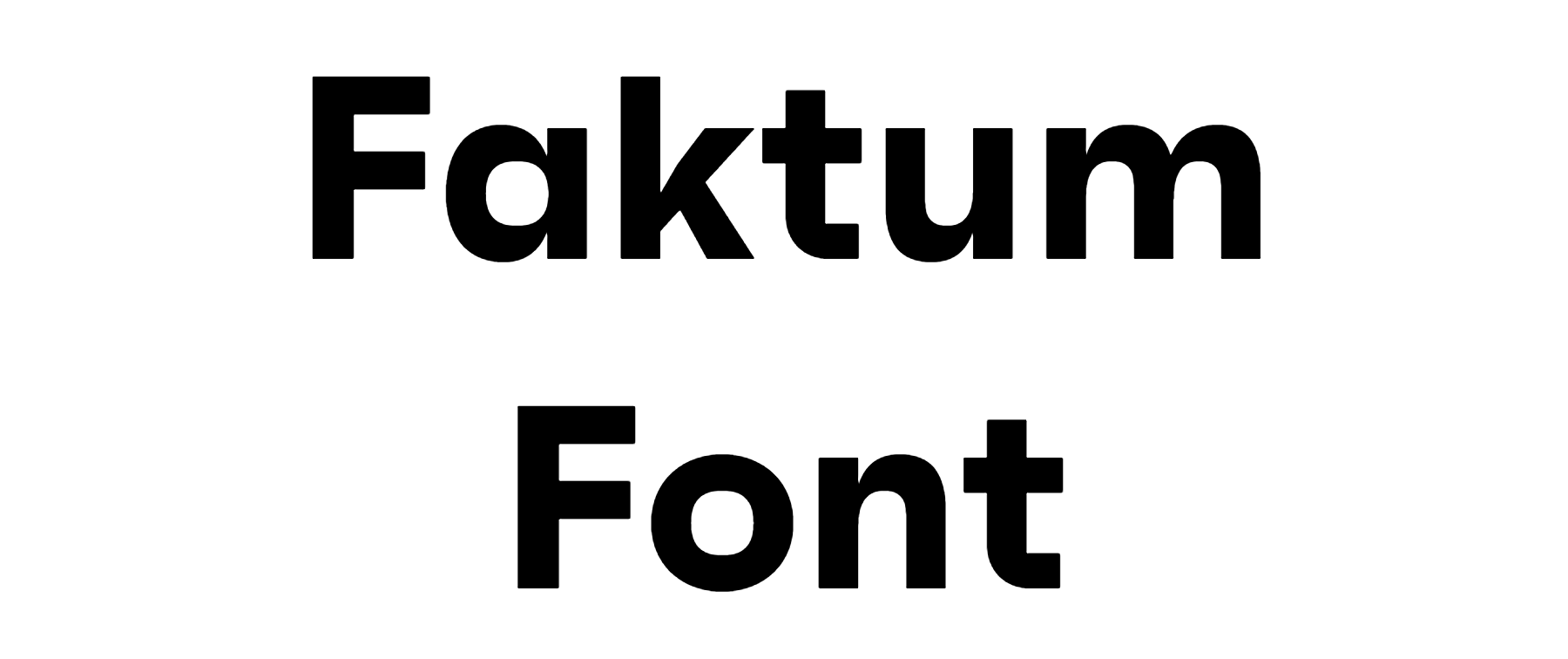
Faktum
Faktum is a sans serif font made by Rene Bieder (2018). Simple, open letter shapes keep it easy to read at almost any size, from app buttons to big headlines. You get two styles in one free ZIP, and the preview above lets you test each one before you download.
- Designer: Rene Bieder
- Font styles: 2 (Regular and Bold)
- Glyphs: 67 in the Regular style
What You Can Type With Faktum
With complete upper and lowercase letters and all ten digits, Faktum is ready for real wording, not just a single headline. Punctuation is limited, so look at the character map if you need a specific symbol. It doesn't include accented letters such as é or ñ, which makes it an English-only font.
Where Faktum Works Best
Designers usually reach for fonts like Faktum when they're making websites, app screens and clean logos. It works for headings and body text alike. If the download has several weights, use a heavier one for titles and a lighter one for paragraphs. Because the family has more than one style, you can mix them in a single design for headings, subheadings and highlights.
Who designed Faktum font?
Does Faktum support accented letters?
No. Faktum has no accented letters such as é, ñ or ü, so it's best for English text.